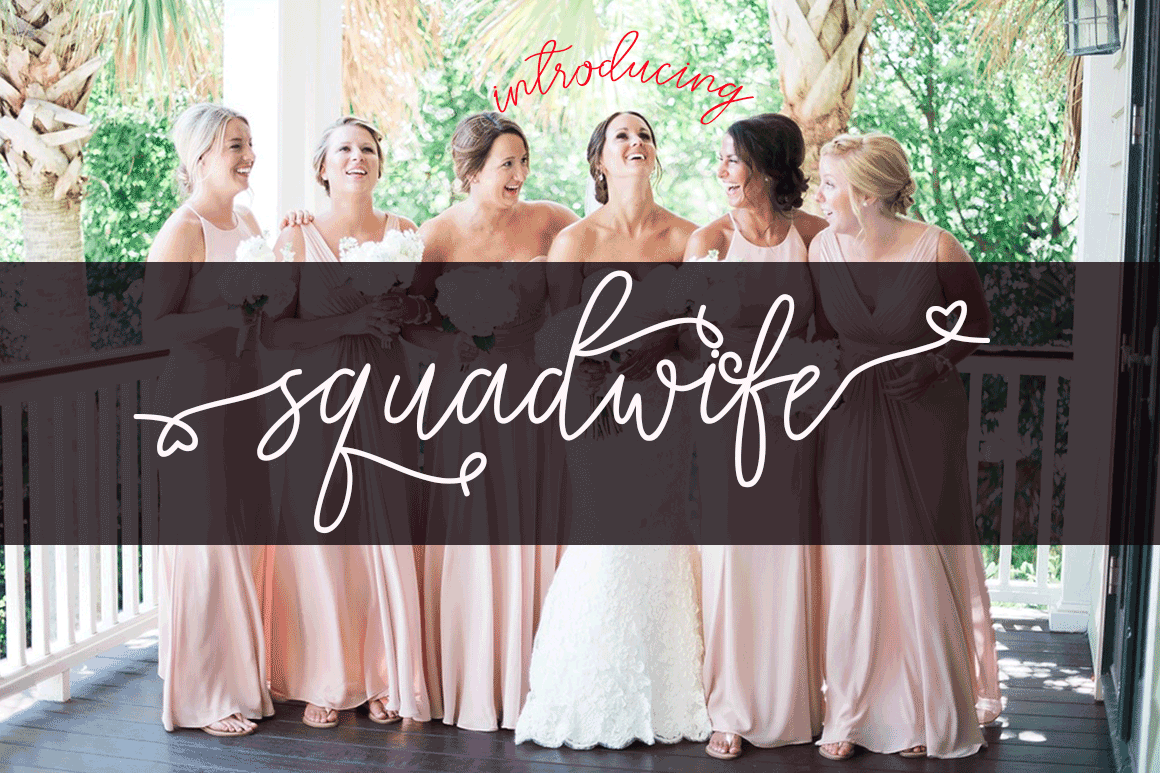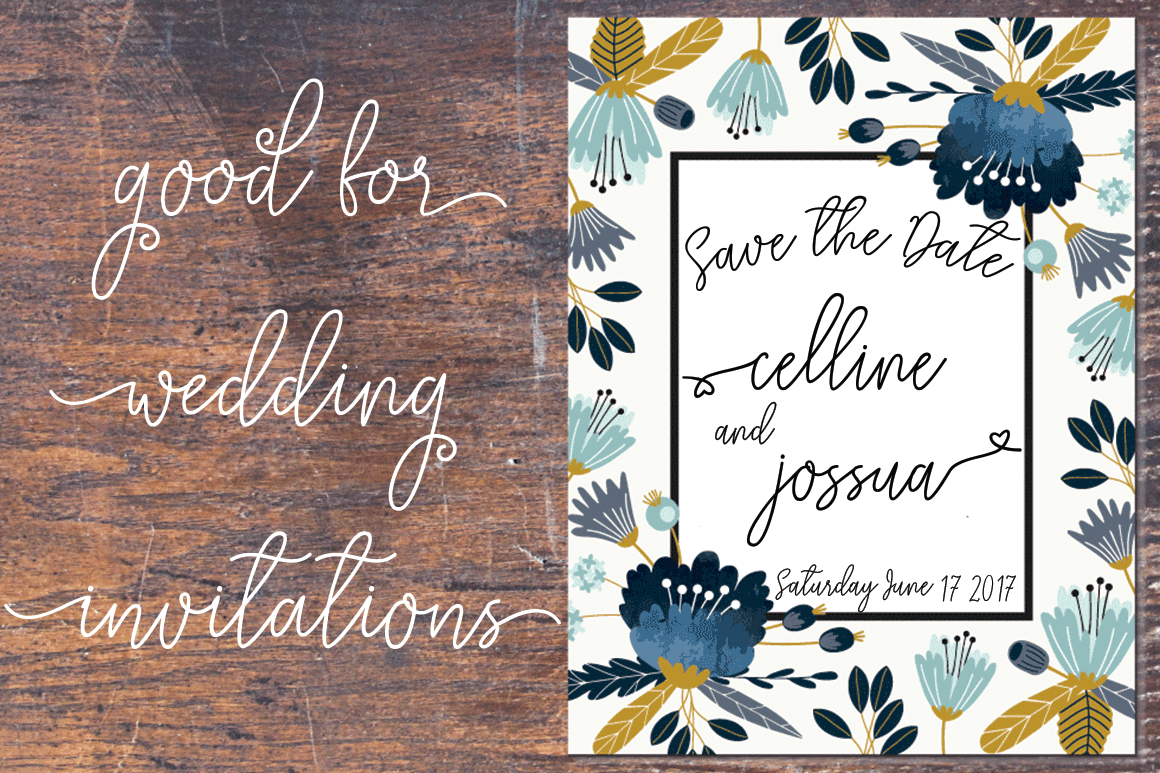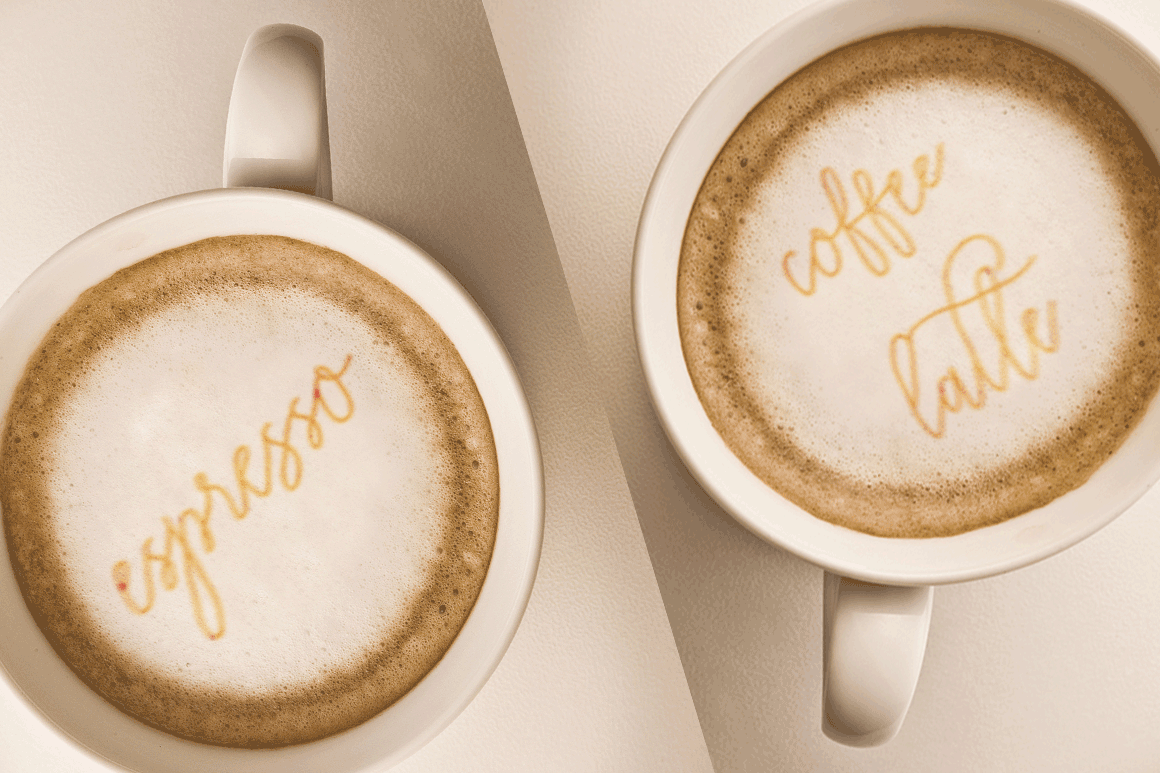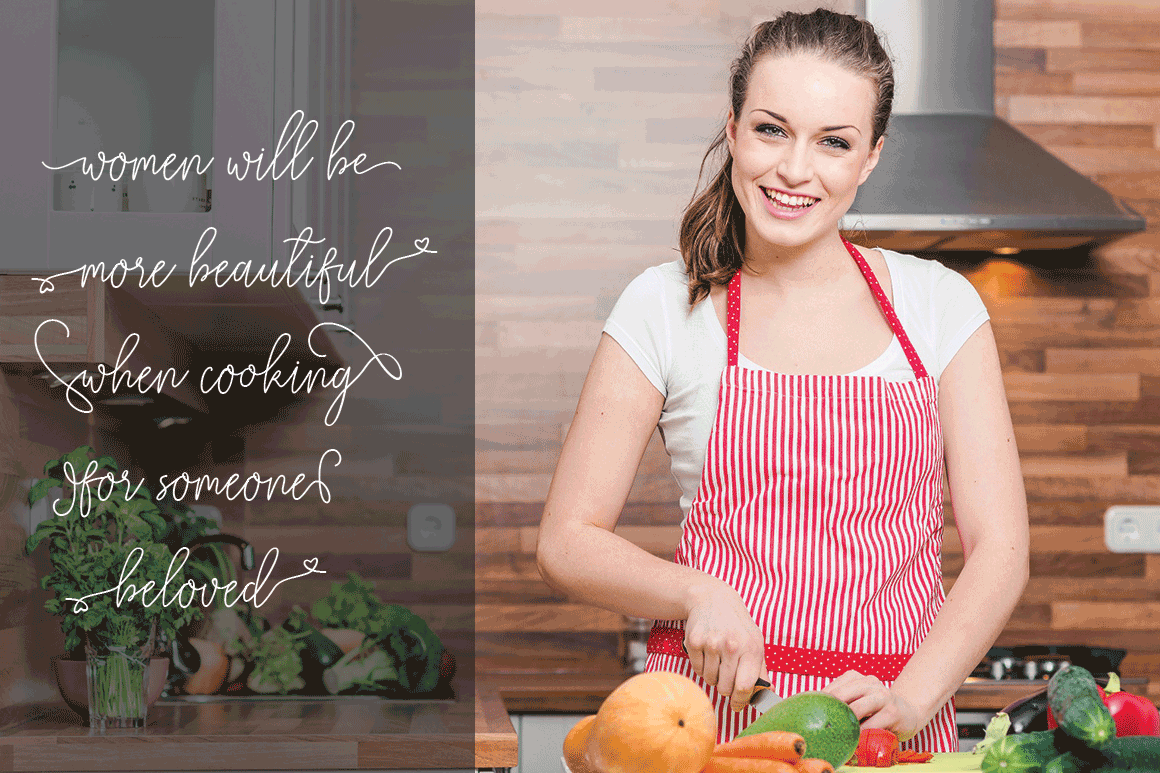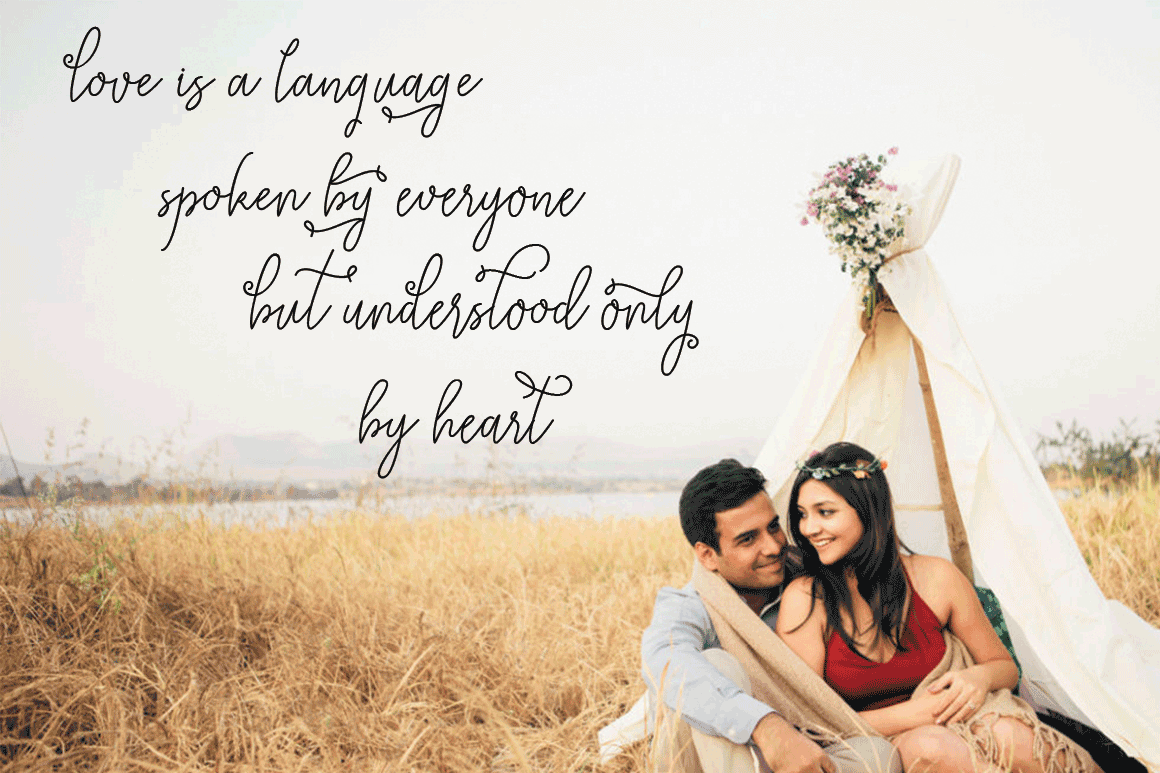
Squadwife Font
About Squadwife Font
Squadwife is a handwritten font featuring little heart decorations. It’s packed with 530+ unique glyphs, which allows for many variations.